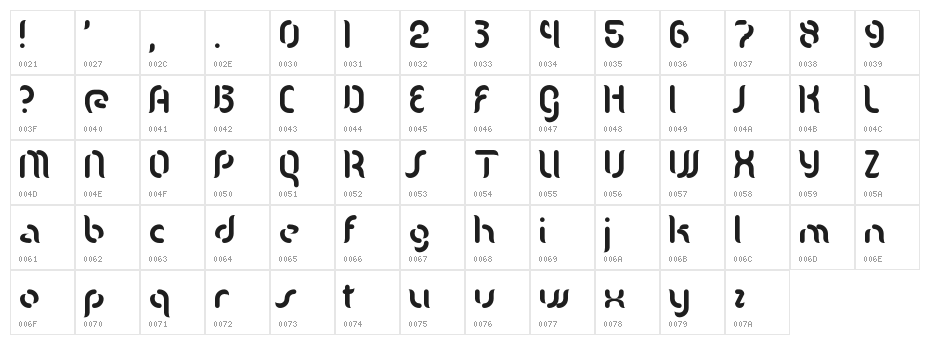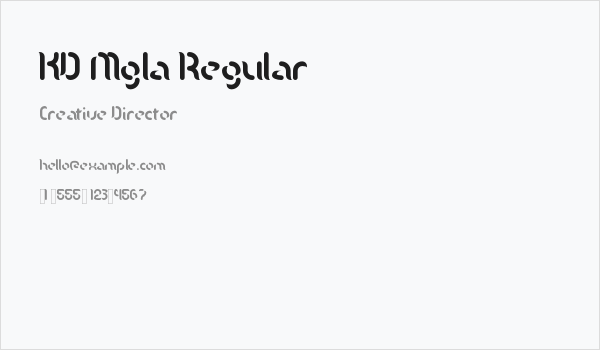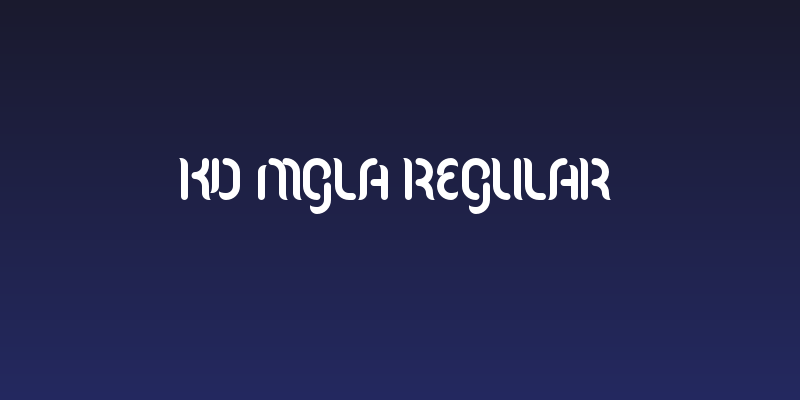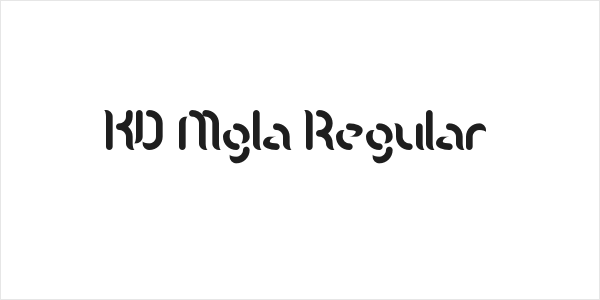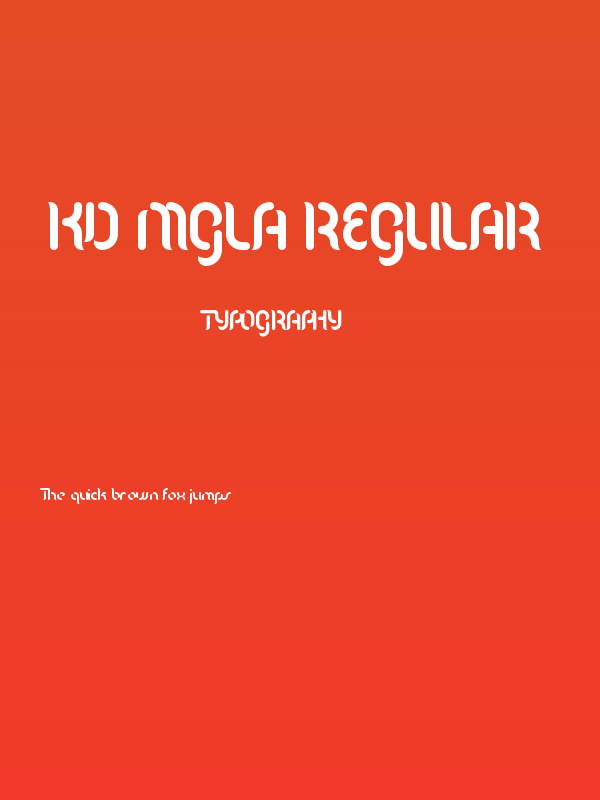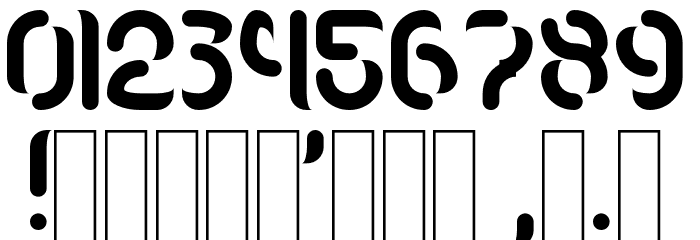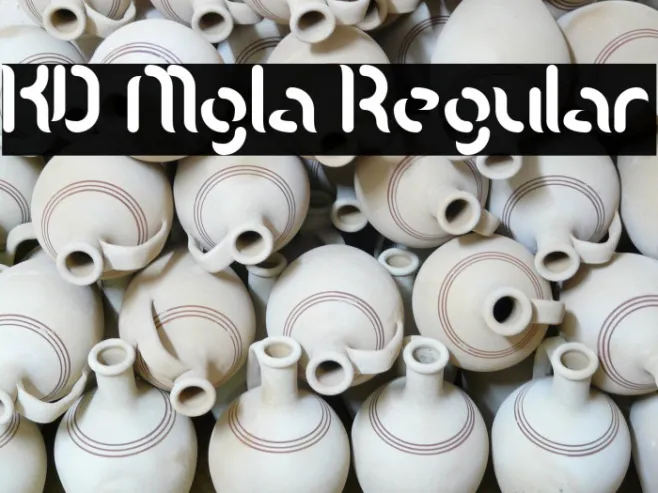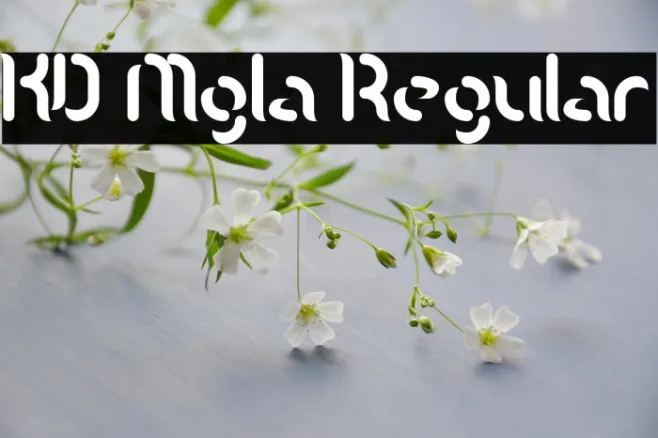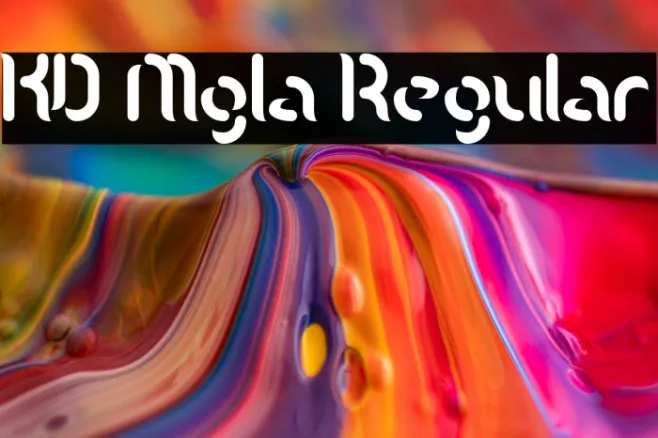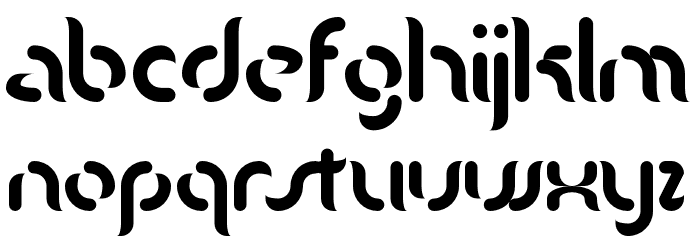
KD Mgla Regular Font
KD Mgla Regular Description
This font features a unique and modern design with a futuristic flair. The characters are composed of bold, rounded strokes that create a sense of movement and fluidity. The uppercase and lowercase letters maintain a consistent style, with smooth curves and a slightly condensed form. The numbers and special characters follow the same design principles, ensuring a cohesive look across all elements. The overall appearance is both striking and versatile, making it suitable for a variety of creative projects.
| Proposed Projects | Ideal for branding, advertising, posters, and digital media projects that require a modern and eye-catching typeface. |